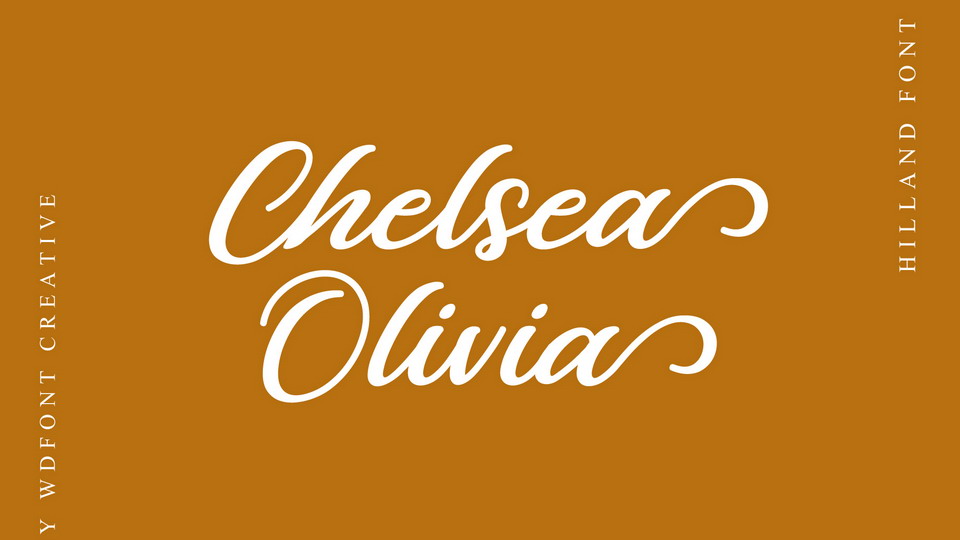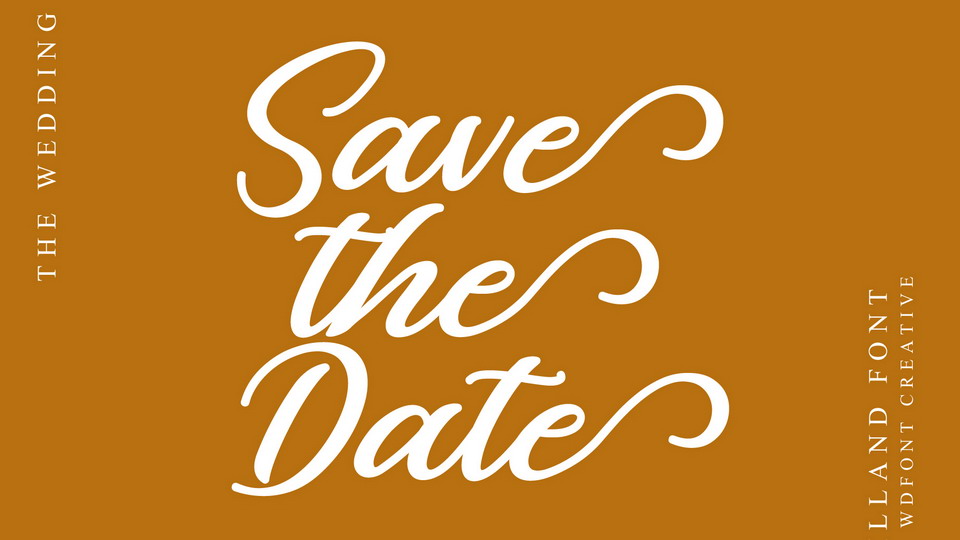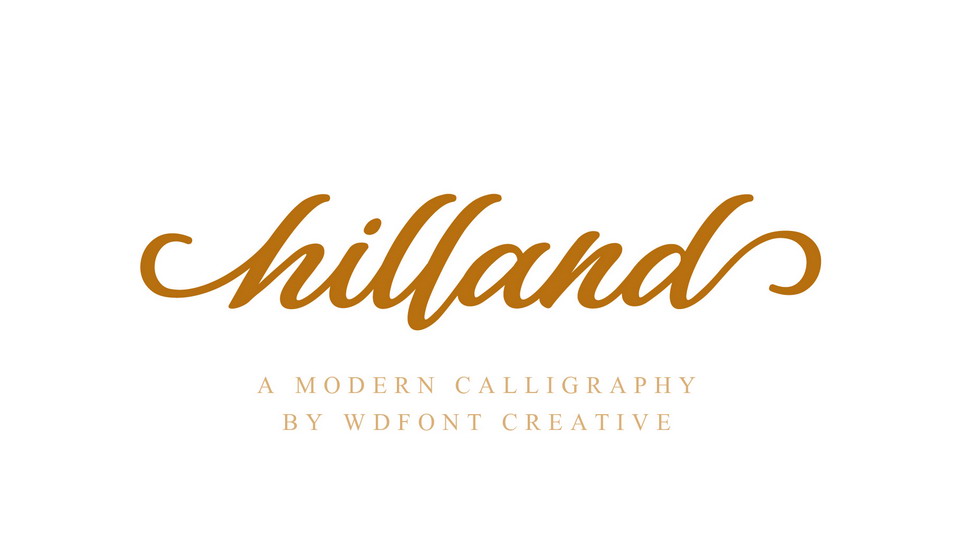
Hilland Script
Hilland is a light and fresh handwritten font that will inspire any design project with its incredibly romantic feel. It comes with a complete set of glyphs, including Opentype features.
Hilland is perfect for logo, wedding design, branding, apparel, social media and more.